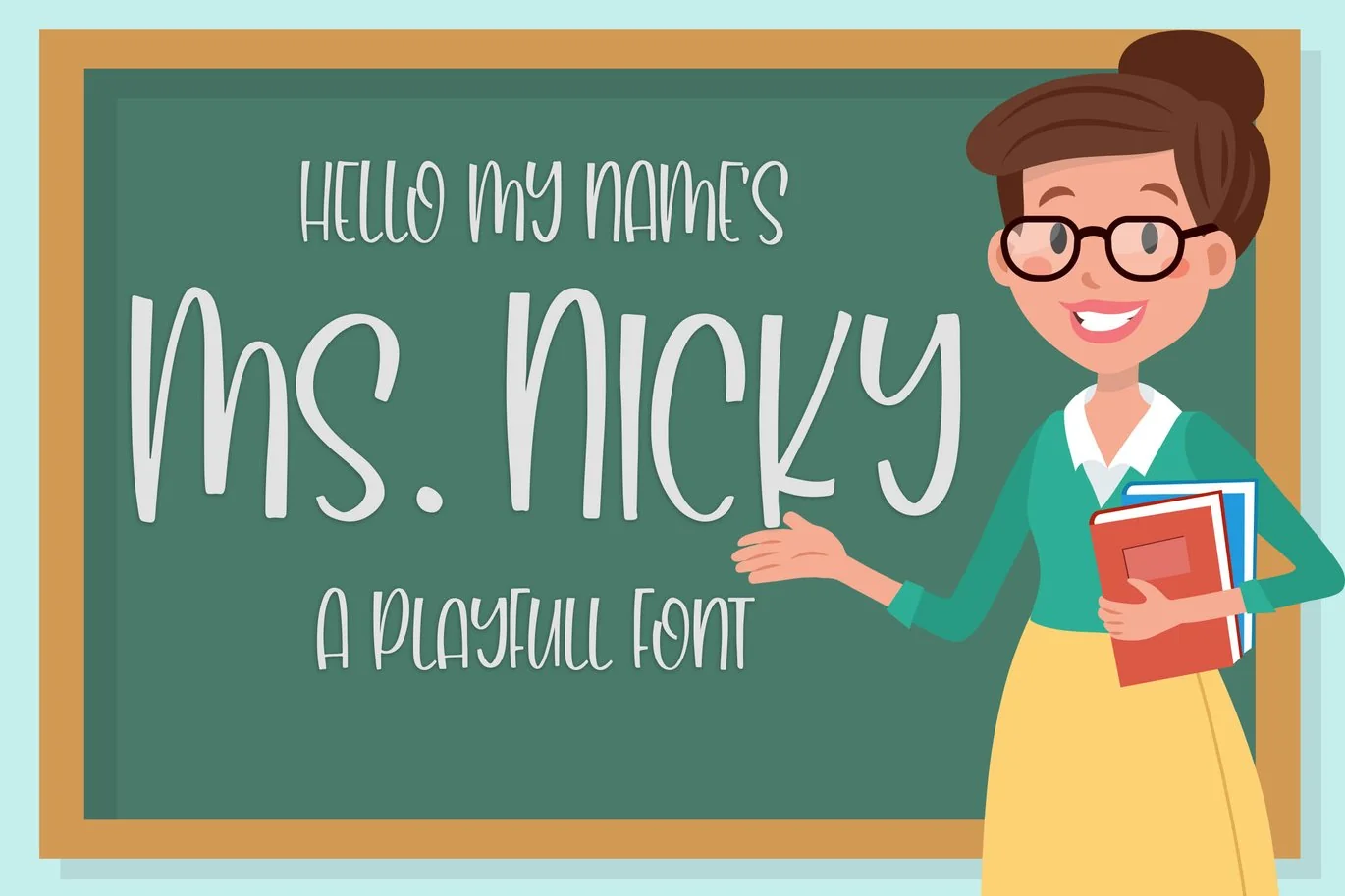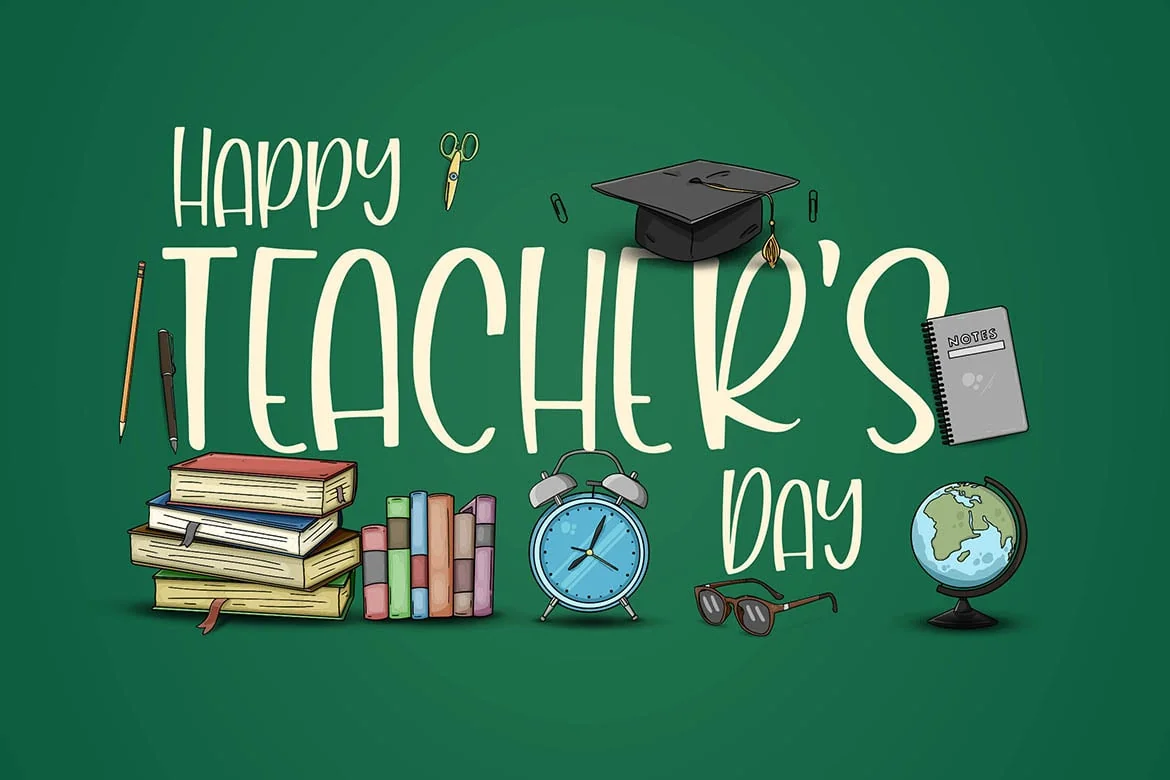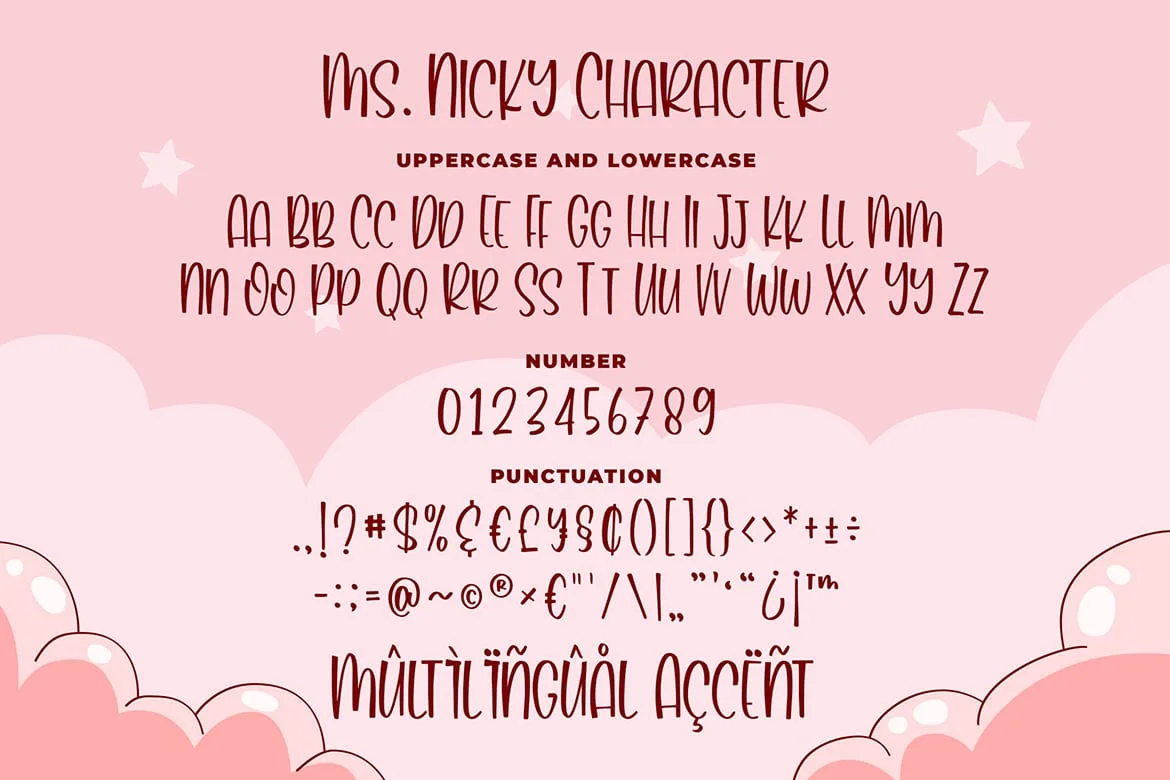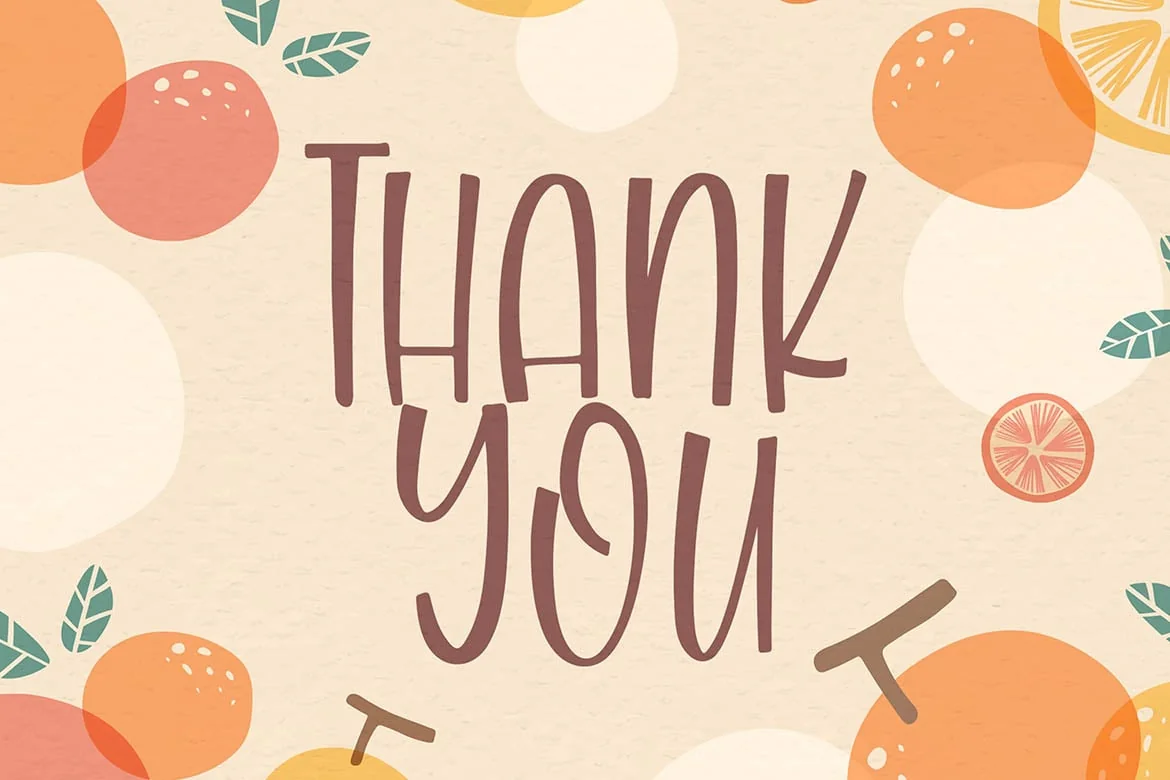
Ms. Nicky – A Playful Font
Introducing of our new product the name is Ms. Nicky A Playful Font. Ms. Nicky inspired by modern calligraphy this font is a fun theme very good for Calligraphy serif, poster, food, wedding, branding etc
MULTILINGUAL ACCENT :